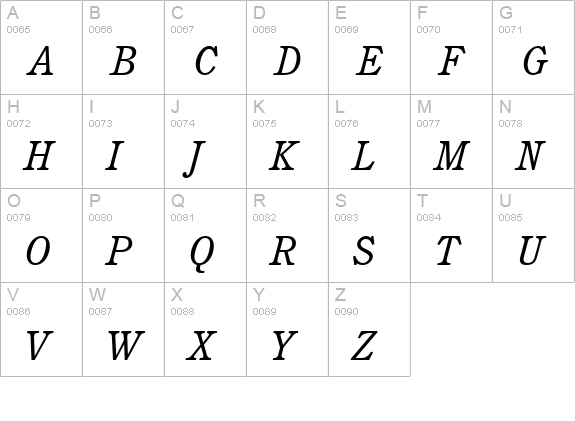
Perspective SSi Italic is a distinctive, italic variant in the Perspective typeface family \xE2\x80\x94 well suited to design and typography projects.
Perspective SSi Italic font is a stunning display typeface that exudes elegance and sophistication. Its unique letterforms are slightly slanted, adding a touch of dynamism and modernity to any design project. With its sleek and flowing curves, Perspective SSi Italic captures attention and creates a sense of movement, making it perfect for headlines, logos, and branding materials. This versatile font is designed to be eye-catching and legible, making it suitable for both print and digital applications. Whether you are designing a poster, a website, or a magazine spread, Perspective SSi Italic will effortlessly enhance your composition with its stylish and contemporary flair. One of the best features of Perspective SSi Italic is that it is available for free. Yes, you heard it right! This incredible font can be freely downloaded at FontsMarket.com, a trusted platform for high-quality fonts. Now, you can add a touch of sophistication to your designs without breaking the bank. Perspective SSi Italic offers a wide range of characters, including lowercase and uppercase letters, numerals, punctuation marks, and special symbols, allowing you to express your creativity without limitations. Its smooth lines and balanced proportions ensure that your text remains visually appealing and easy to read. Whether you are a graphic designer, a web developer, or a creative enthusiast, Perspective SSi Italic font is a must-have in your toolkit. Its versatility, elegance, and affordability make it a go-to choice for professionals and amateurs alike. So why wait? Head over to FontsMarket.com and download Perspective SSi Italic for free to elevate your designs and leave a lasting impression.